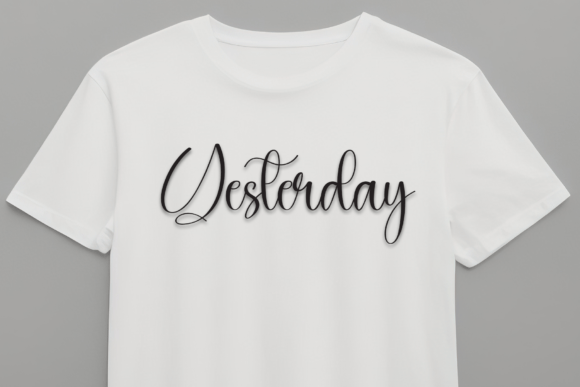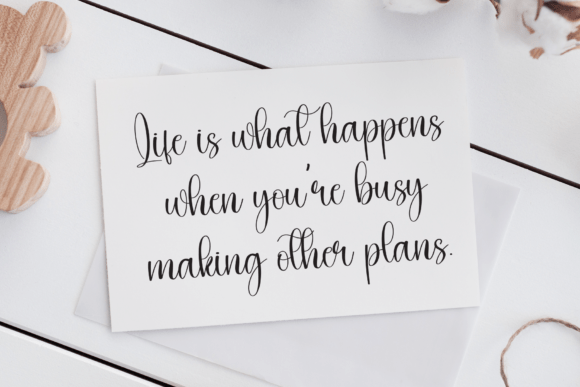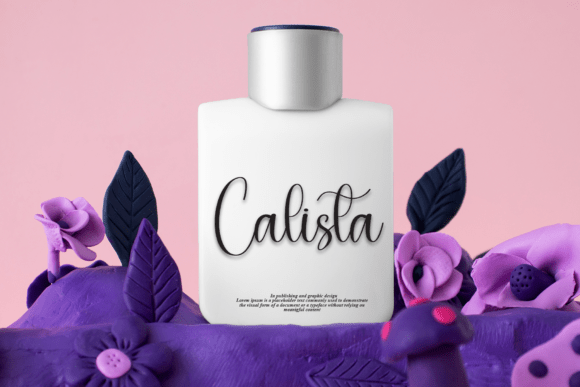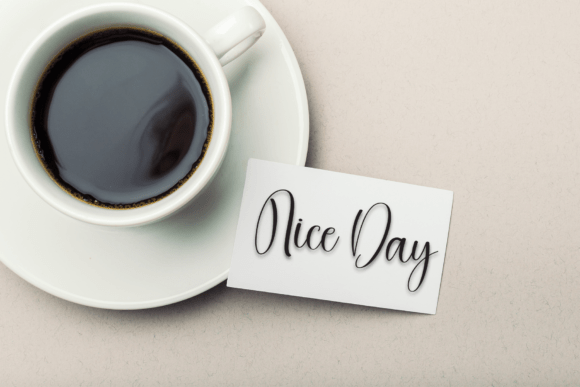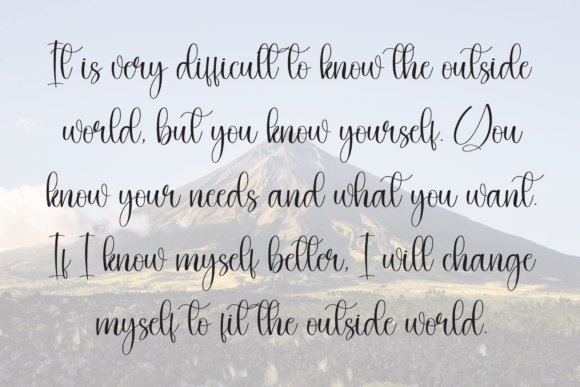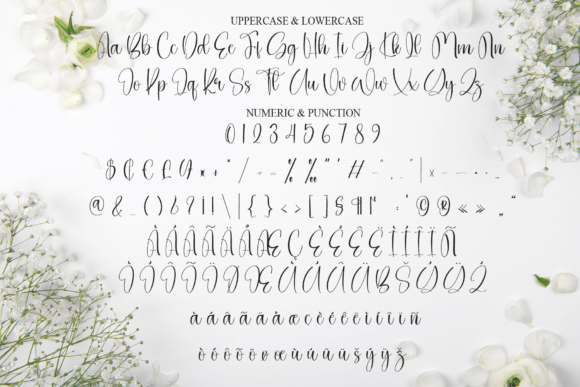
The Elegance of Continuously Font: A Designer’s Delight
I’ll never forget the time I was working on a wedding invitation project, and my client asked for a font that exuded luxury and sophistication. I scoured the internet, tried out countless fonts, but nothing seemed to fit the bill. That was until I stumbled upon Continuously Font. With its elegant handwritten script and sweeping ligatures, it was as if the designer had read my client’s mind. In this article, I’ll share my experience with Continuously Font, its features, and how to make the most of it in your designs.
- ✨ Elegant and refined: Continuously Font adds a touch of sophistication to any design project.
- ✅ Versatile: Suitable for wedding invites, upscale branding, lifestyle content, and more.
- 💫 Beautiful ligatures: The font’s sweeping ligatures create a beautiful, flowing effect.
- 🎨 Highly customizable: With OpenType features and glyphs, you can experiment with different styles and variations.
While Continuously Font is an excellent choice, there are a few things to keep in mind:
- ⚠️ Limited use in body text: Due to its elegant and cursive nature, Continuously Font might not be the best choice for long blocks of body text.
- 🤔 Requires careful kerning: As with any script font, kerning can be a bit tricky, especially at smaller font sizes.
According to its designer, Continuously Font was inspired by the flowing curves of handwritten calligraphy. The goal was to create a font that felt both elegant and refined, yet approachable and friendly. With its beautiful ligatures and sweeping curves, Continuously Font is a testament to the power of handwritten typography.
Q: What type of projects is Continuously Font best suited for?
A: Continuously Font is ideal for wedding invites, upscale branding, lifestyle content, and any project that requires a touch of elegance and sophistication.
Q: Can I use Continuously Font for body text?
A: While Continuously Font is beautiful, it’s not the best choice for long blocks of body text. Its elegant and cursive nature makes it more suitable for headings and titles.
Q: Does Continuously Font support OpenType features?
A: Yes, Continuously Font supports OpenType features, including ligatures, stylistic alternates, and glyphs. This allows for a high degree of customization and flexibility in your designs.
Q: Is Continuously Font easy to read?
A: Continuously Font is designed to be elegant and refined, but it may require careful kerning and font size selection to ensure optimal readability.